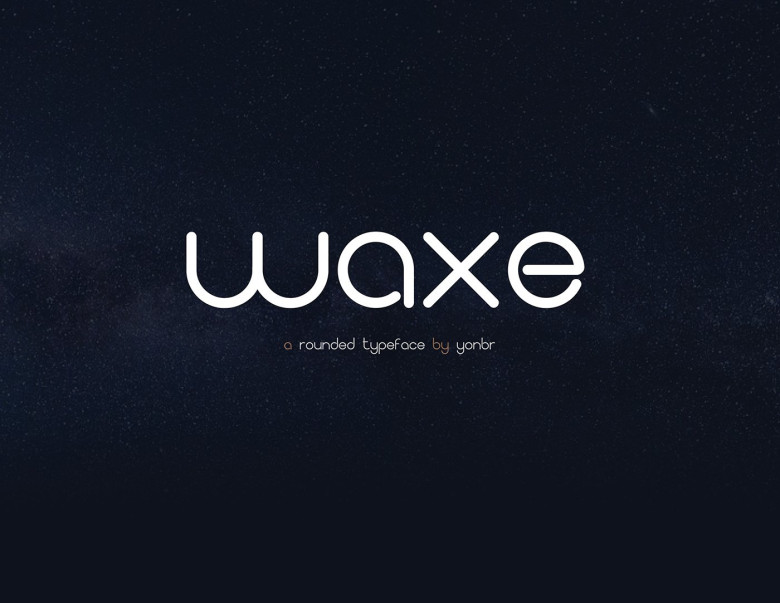
Waxe Typeface
Introducing a rounded typeface by Yonbr D. Waxe is a rounded typeface inspired by circular forms and curves, with a simple structure and a strong emphasis on its rounded terminals and clean lines and modern feel. A perfect fit for posters, invitations, wedding cards or film and tv.